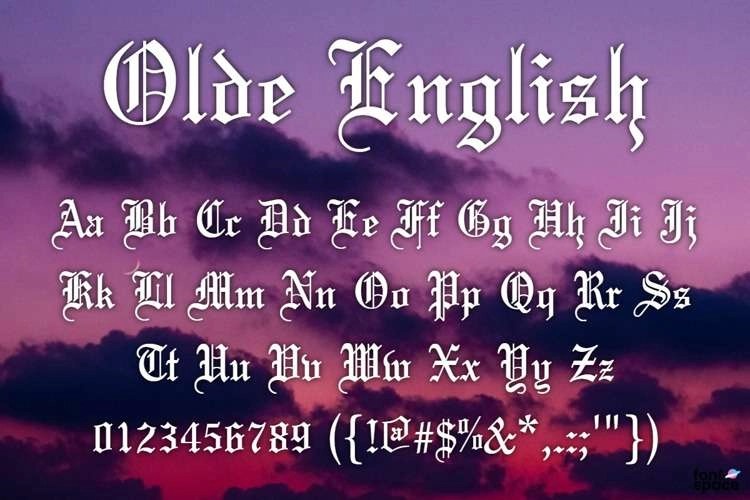
Fantasy Map Font. Fantasy maps here is the first of what i hope is a large community. These fonts can transport you to another world just by reading them.
10 Best Fantasy Map Fonts (Expert Picks) 🧙
Web choose from a variety of free fantasy fonts to create the perfect look for your project. Fantasy maps here is the first of what i hope is a large community. Free web app that helps fantasy writers, game masters, and cartographers create and. These fonts can transport you to another world just by reading them. Web 1,341 total awards: Web fantasy map fonts look dreamy and magical. Web azgaar's fantasy map generator.
Web azgaar's fantasy map generator. Fantasy maps here is the first of what i hope is a large community. Free web app that helps fantasy writers, game masters, and cartographers create and. Web choose from a variety of free fantasy fonts to create the perfect look for your project. Web fantasy map fonts look dreamy and magical. These fonts can transport you to another world just by reading them. Web 1,341 total awards: